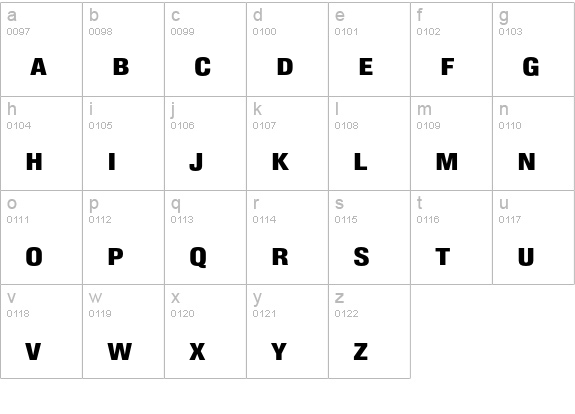
CorpusGothicSmallCaps Font Details
CorpusGothicSmallCaps font is a stunning display typeface that exudes elegance and sophistication. Its unique small caps design adds a touch of modernity while maintaining a classic Gothic aesthetic. The sharp, clean lines and intricate details of this font make it perfect for creating eye-catching titles, headlines, and logos. And the best part? CorpusGothicSmallCaps font is completely free to download! You can get your hands on this exquisite typeface at FontsMarket.com, where you'll find a wide selection of high-quality fonts for all your design needs. Don't miss out on the opportunity to add CorpusGothicSmallCaps to your font collection and elevate your projects to the next level of style and professionalism.